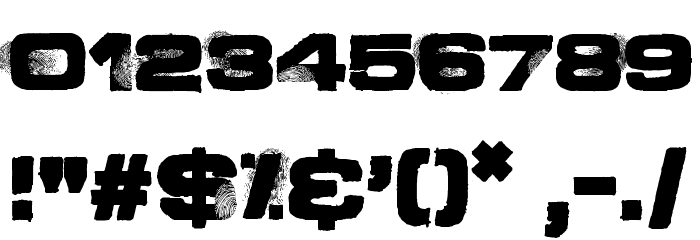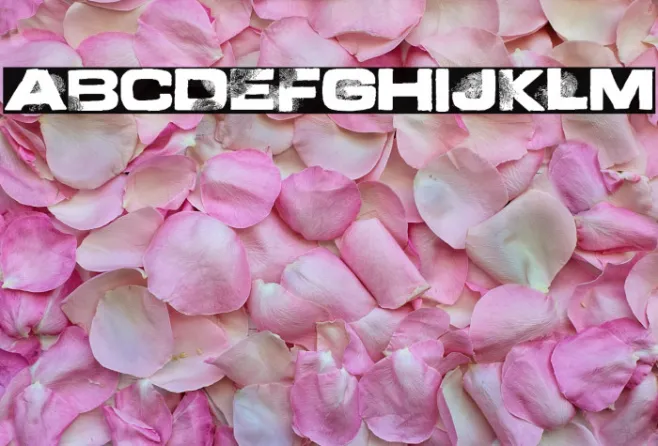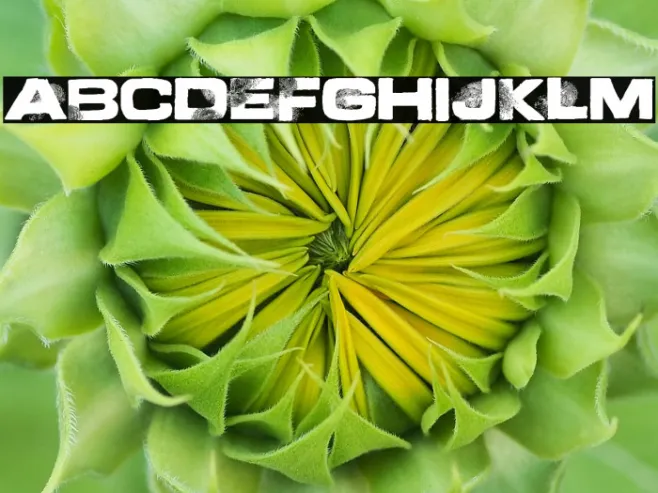
Finger Printed Font
Finger Printed Description
This font features a bold and rugged design with a unique fingerprint texture overlaying each character. The uppercase letters are prominent and impactful, making a strong visual statement. The numbers and special characters maintain the same textured style, adding a cohesive look across all elements. The font's distinct appearance is ideal for projects that require a gritty or edgy aesthetic, such as posters, album covers, or branding for unconventional products. Its boldness ensures readability while the texture adds an artistic flair.
| Proposed Projects | Ideal for posters, album covers, branding for unconventional products, and artistic projects. |